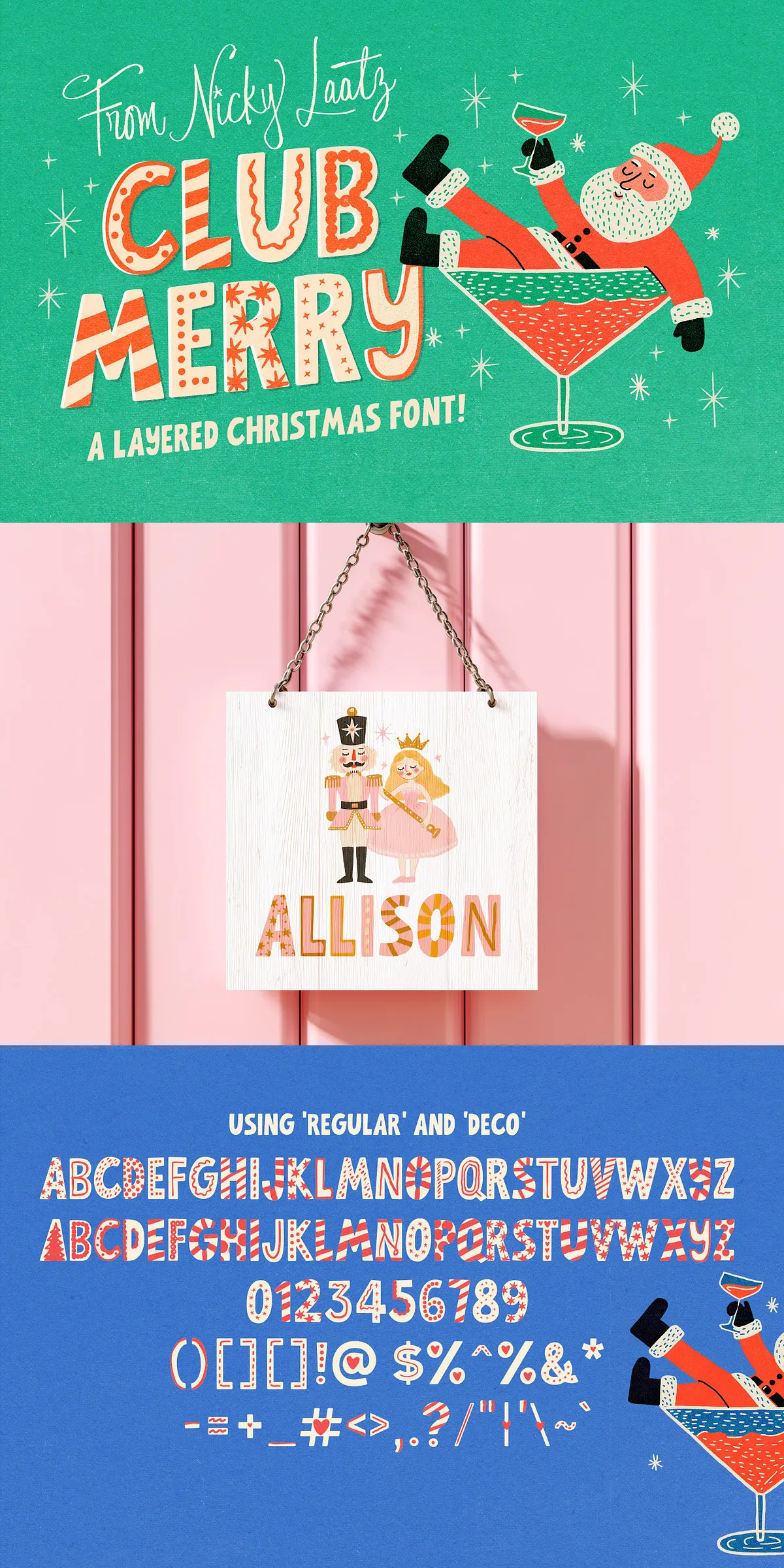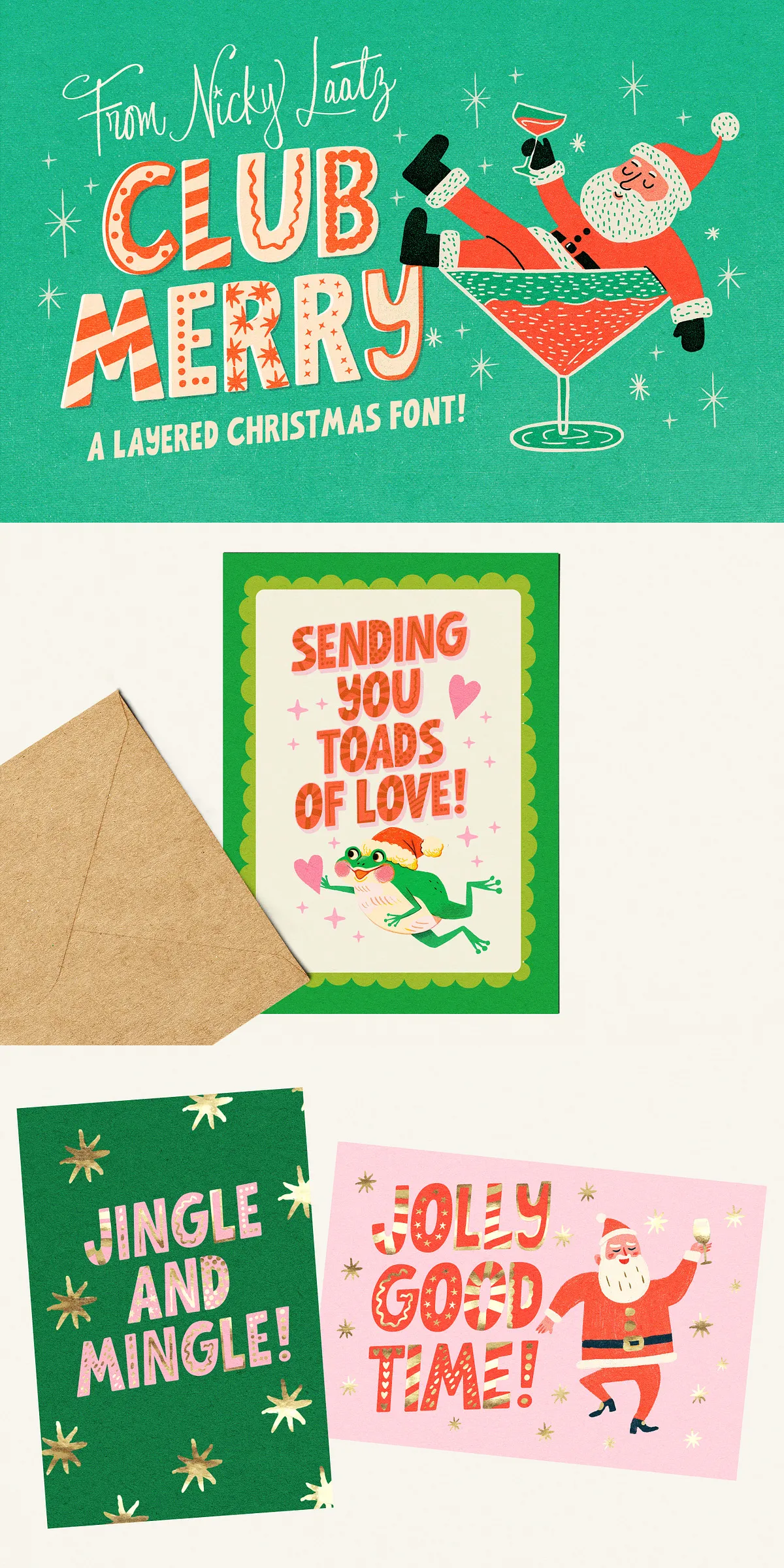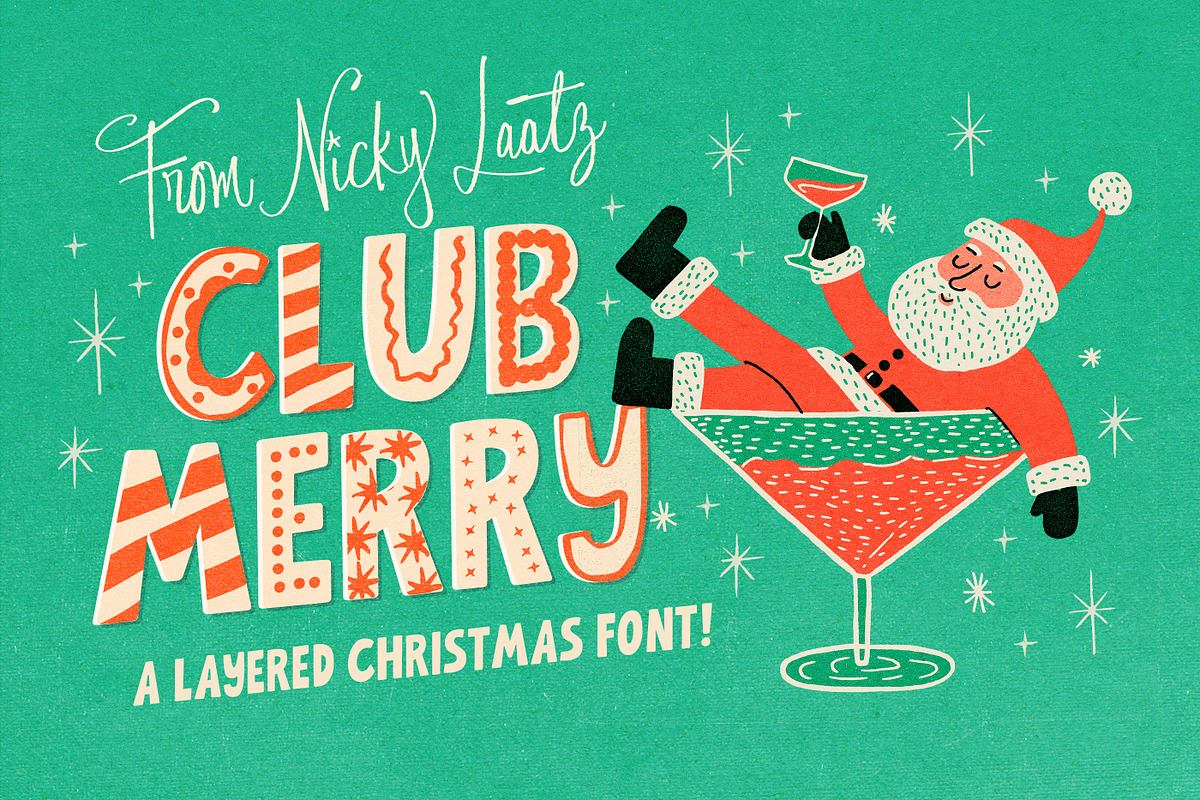
Get ready to spread holiday cheer with this bold, layered Sans Serif font crafted for the festive season! More than just a typeface, it’s a celebration of joy, color, and creativity — packed with dynamic layers, dazzling effects, and playful details that turn every design into a holiday masterpiece. Whether you’re decking the halls with graphics or crafting festive messages online, this font delivers that perfect blend of modern style and seasonal sparkle.
Why This Font is a Holiday Game-Changer
Traditional Christmas fonts can be stiff or overly cliché — but this one? It’s fresh, fun, and full of personality. Built with versatility in mind, it starts with a clean, rounded playful Sans Serif base — easy to read, modern, and ideal for both single-use and layered compositions. But the real magic happens in the layers. With multiple versions included, you’re not just getting one font — you’re getting a full creative toolkit for every festive project.
Full Suite of Holiday-Ready Layers & Effects
- Base Playful Sans Serif – The foundation of the design. Friendly, bold, and highly readable. Great on its own or layered over other effects. Perfect for titles, taglines, and social media posts.
- Single Outline Version – Adds depth and dimension to any text. Ideal for making your holiday message pop against dark backgrounds or for creating a subtle, clean look with strong contrast.
- Left-Side Shadow Effect – Mimics a vintage misprinted or offset look. Adds a whimsical, retro holiday vibe — especially effective on light backgrounds or in handcrafted designs.
- Right-Side Shadow Effect – Offers a different visual depth, ideal for giving text a warm, dimensional glow — excellent for digital cards, posters, and animated graphics.
- Deco Version (Decorative Edition) – Features festive embellishments such as tiny stars, snowflakes, and ornament motifs woven into the letterforms. Perfect for holiday cards, invitations, and festive quote graphics.
- 3D Shadow / Extruded Version – Offers a bold, dimensional feel with a realistic extrusion effect. Makes your text look like it’s floating off the page, ideal for headlines, logos, and large-format displays.
Where to Use This Festive Font: 6 Creative Applications
This font isn’t limited to Christmas — it’s crafted for any holiday-themed project that needs fun, flair, and personality. From digital design to print, this typeface adapts seamlessly to any medium.
Top 6 Design Moments That Call for This Font
- Christmas Cards & E-Invitations – Use the deco or extruded versions for elegant headers, and the base font for heartfelt messages. The layers add depth and charm that printed cards love.
- Social Media Graphics & Reels – Perfect for Instagram, TikTok, and Facebook posts. The bold forms and playful shadows grab attention instantly — ideal for holiday promotions, giveaways, and seasonal announcements.
- Poster & Banner Designs – Use the 3D or shadow versions for bold headlines. The layered structure makes your visuals stand out in holiday campaigns and event promotions.
- Branding & Merchandise – Launch your own holiday collection with branded mugs, T-shirts, tote bags, and stickers. The playful yet clean design works beautifully on apparel and packaging.
- Website Headers & Email Newsletters – Add festive energy to your site or email campaigns. The layered effects can be used sparingly to highlight key messages without overwhelming the design.
- Typography Art & Digital Prints – Turn holiday quotes or messages into unique wall art. The multiple versions let you experiment with texture, depth, and mood — perfect for NFTs, print-on-demand, or online galleries.
Unleash Your Holiday Creativity: Pro Design Tips
To get the most from this font duo, try these expert-approved hacks that elevate your designs from good to unforgettable.
Pro Tips for Maximum Festive Impact
- Use the Deco version for holiday greetings and social media bios — it instantly adds charm and personality.
- Stack the left and right shadows together for a dramatic “double glow” effect — great for headlines in posters or digital campaigns.
- For a handcrafted look, combine the outline with a soft brush texture or paper background texture.
- Use the 3D extruded version only for dominant headlines — keep body text in the base or deco version to maintain readability.
- Pair the font with warm colors like red, gold, forest green, or cream to enhance its festive mood.
Stop settling for cookie-cutter Christmas designs. With this layered, animated-ready Sans Serif font, you’re not just typing — you’re creating moments. Every letter feels alive, every layer adds meaning, and every project carries that unmistakable holiday spirit.